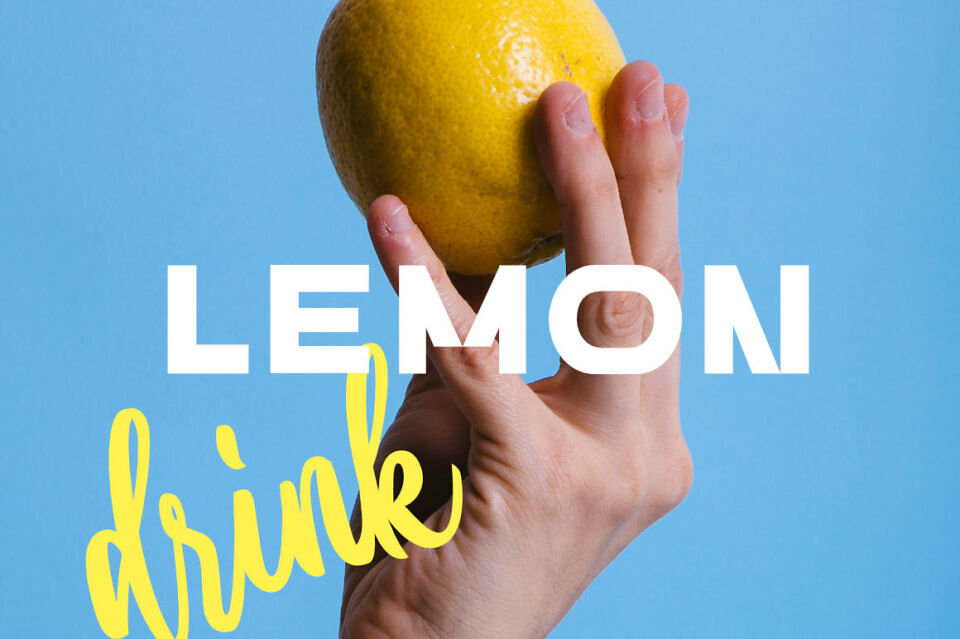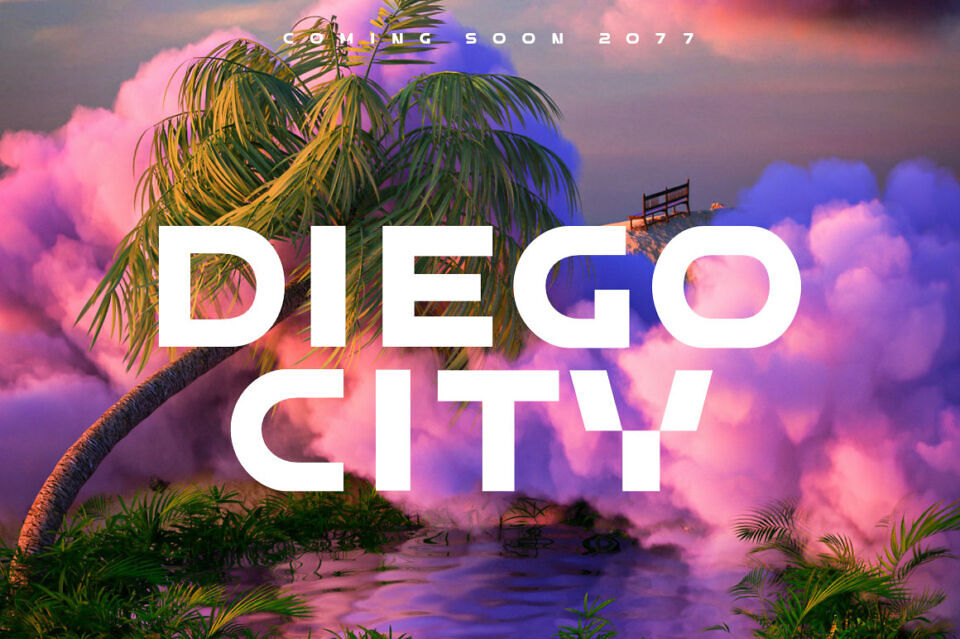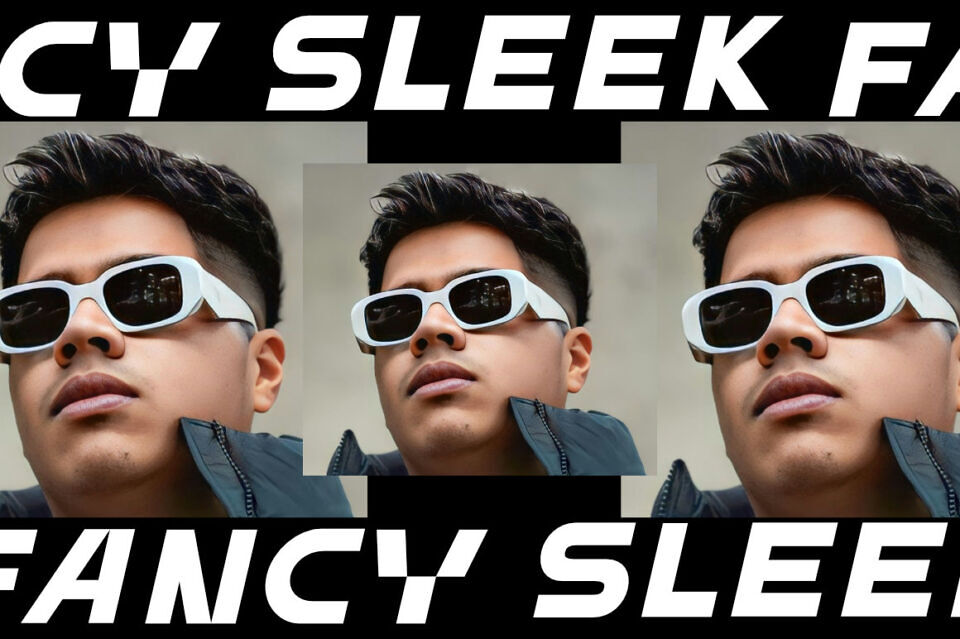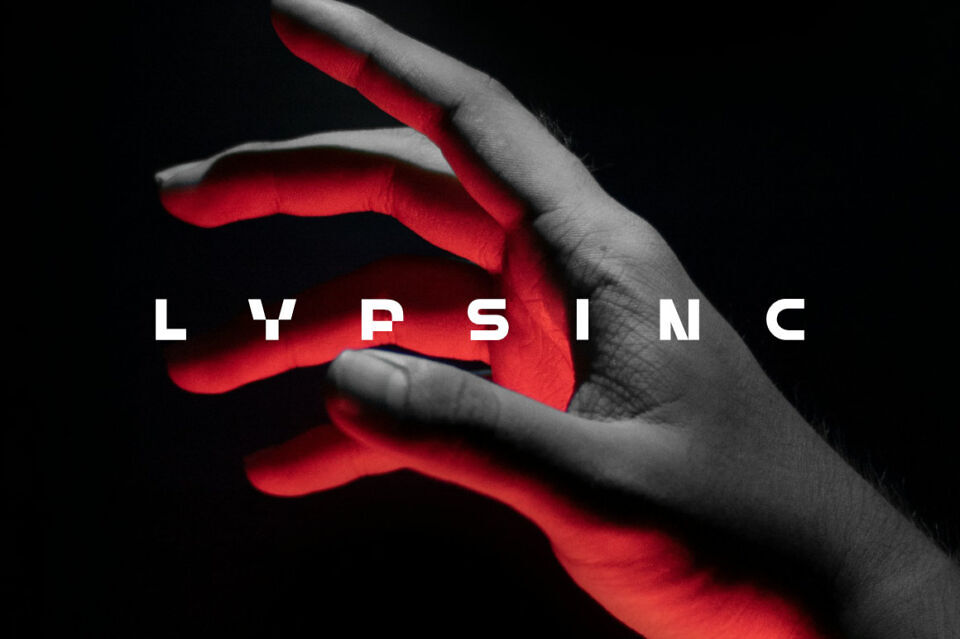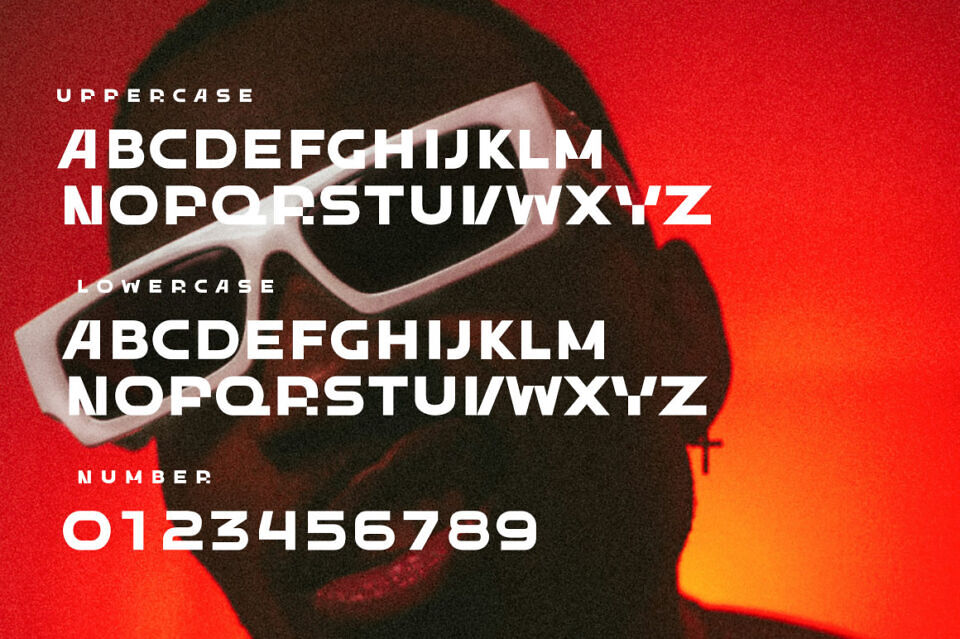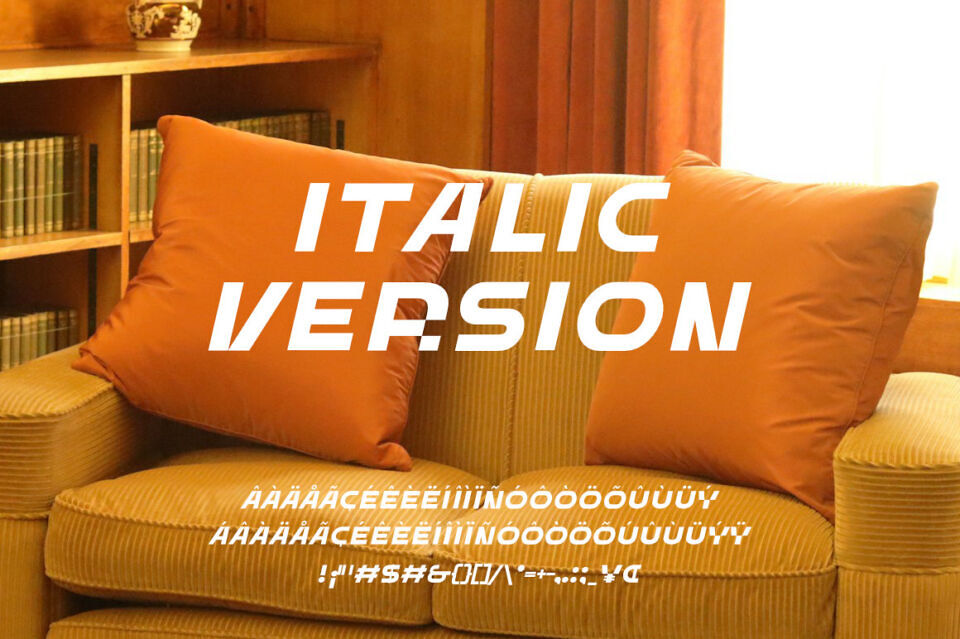
Originally designed for industrial and sci-fi applications, this geometric sans-serif font evokes the sleek lines of high-tech machinery and cutting-edge devices.
Its bold, square-shaped characters bring a futuristic yet corporate appeal, making it the perfect choice for tech advertisements, UI/UX design, and corporate branding.
Whether used on digital billboards, product packaging, or modern websites, ensures a professional yet forward-thinking aesthetic.